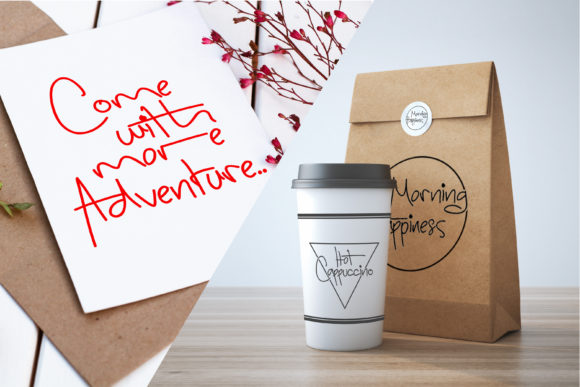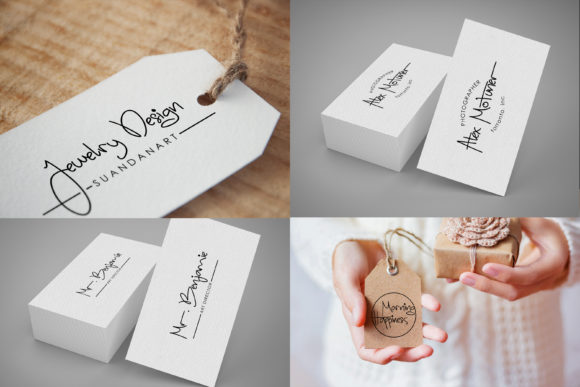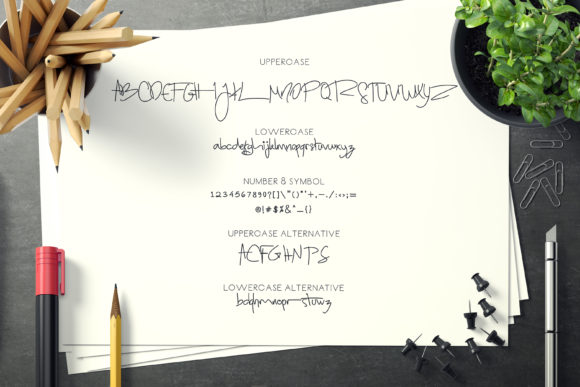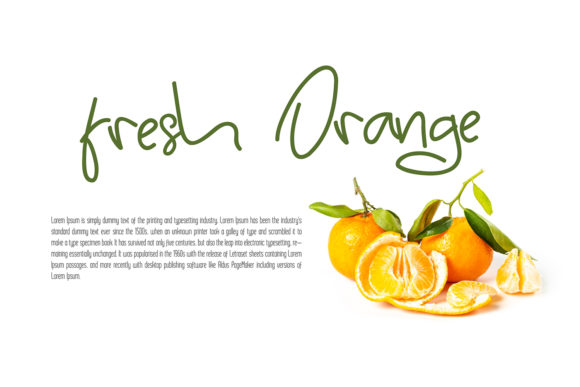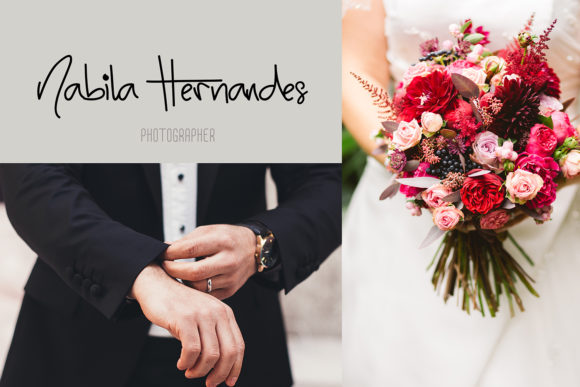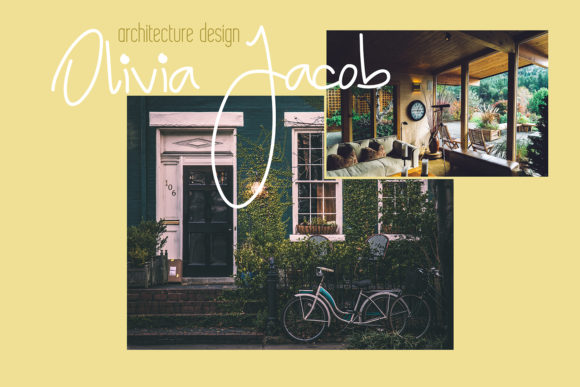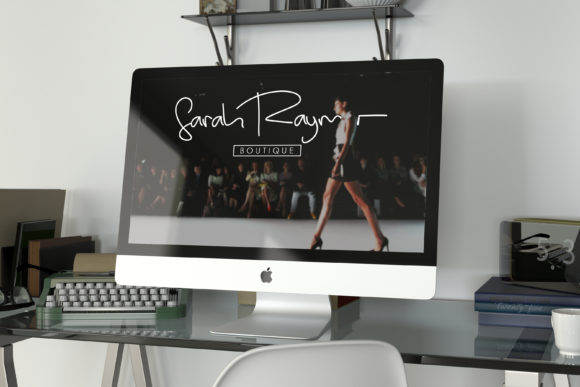
Sugar Candy Font
About Sugar Candy Font
Sugar Candy sounds like a delightful and versatile handwritten font that perfectly captures a sense of timelessness and relaxation. With its charming appeal, Sugar Candy can add a touch of elegance and warmth to various design projects. Here are some captivating ideas on how to use Sugar Candy to create stunning designs:
1. Wedding Invitations: Design enchanting and romantic wedding invitations using Sugar Candy font to set the tone for a sweet and memorable celebration.
2. Thank You Cards: Create heartfelt and stylish thank you cards featuring Sugar Candy font to express gratitude with a touch of elegance.
3. Quotes and Inspirational Prints: Use Sugar Candy font to design beautiful quote prints or inspirational posters that radiate positivity and charm.
4. Greeting Cards: Design captivating and personalized greeting cards for all occasions, such as birthdays, holidays, or special events, using Sugar Candy font for a warm and inviting touch.
5. Branding and Logos: Incorporate Sugar Candy font into branding elements, logos, and business cards to give your brand a sense of approachable elegance.
6. Stationery and Letterhead: Apply Sugar Candy font to stationery design and letterhead for a relaxed and friendly look in your professional correspondence.
7. Social Media Graphics: Create eye-catching and inviting social media posts, stories, and banners with Sugar Candy font to engage your audience with its charming appeal.
8. Book Covers: Use Sugar Candy font in book cover designs, whether for novels, children’s books, or cookbooks, to add a touch of sweetness and approachability.
9. Blog and Website Titles: Apply Sugar Candy font to blog or website titles and headers for a welcoming and warm presentation.
10. Personal Branding: Use Sugar Candy font for personal branding elements, such as signatures or watermarks, to add a touch of personal charm to your online presence.
11. Event Signage: Design delightful and charming event signage, such as welcome signs or directional signs, using Sugar Candy font to create a warm and inviting atmosphere.
12. Artistic Lettering: Experiment with Sugar Candy font for artistic lettering pieces, combining its relaxed style with creative flair.
13. Business Presentations: Incorporate Sugar Candy font into business presentations to add a friendly and approachable touch to your slides.
14. Menu Design: Create inviting and visually appealing menus for restaurants or cafes using Sugar Candy font to evoke a sense of warmth and comfort.
15. Packaging Design: Use Sugar Candy font in product packaging design to add a touch of sweetness and approachability to your products.
16. Art Prints: Design heartwarming art prints featuring Sugar Candy font to showcase its timeless charm and friendly appeal.
17. Personalized Gifts: Apply Sugar Candy font to create personalized gifts, such as custom stationery, framed prints, or custom mugs, for a touch of warmth and thoughtfulness.
18. Handwritten Quotes: Use Sugar Candy font to write out handwritten quotes or messages in digital art, social media graphics, or printed artworks.
19. Whimsical Invitations: Design whimsical event invitations for playful gatherings, themed parties, or special events using Sugar Candy font for a relaxed and inviting touch.
20. Beauty and Lifestyle Branding: Incorporate Sugar Candy font into beauty or lifestyle branding to convey a sense of approachable elegance and sweetness.
In summary, Sugar Candy’s timeless and relaxed handwritten style makes it a perfect choice for a wide range of design projects. Whether for weddings, events, social media, or branding, Sugar Candy font brings a sense of warmth and charm to every design, leaving a lasting impression on your audience. Fall in love with Sugar Candy font and let it infuse your creative endeavors with its delightful and inviting appeal.